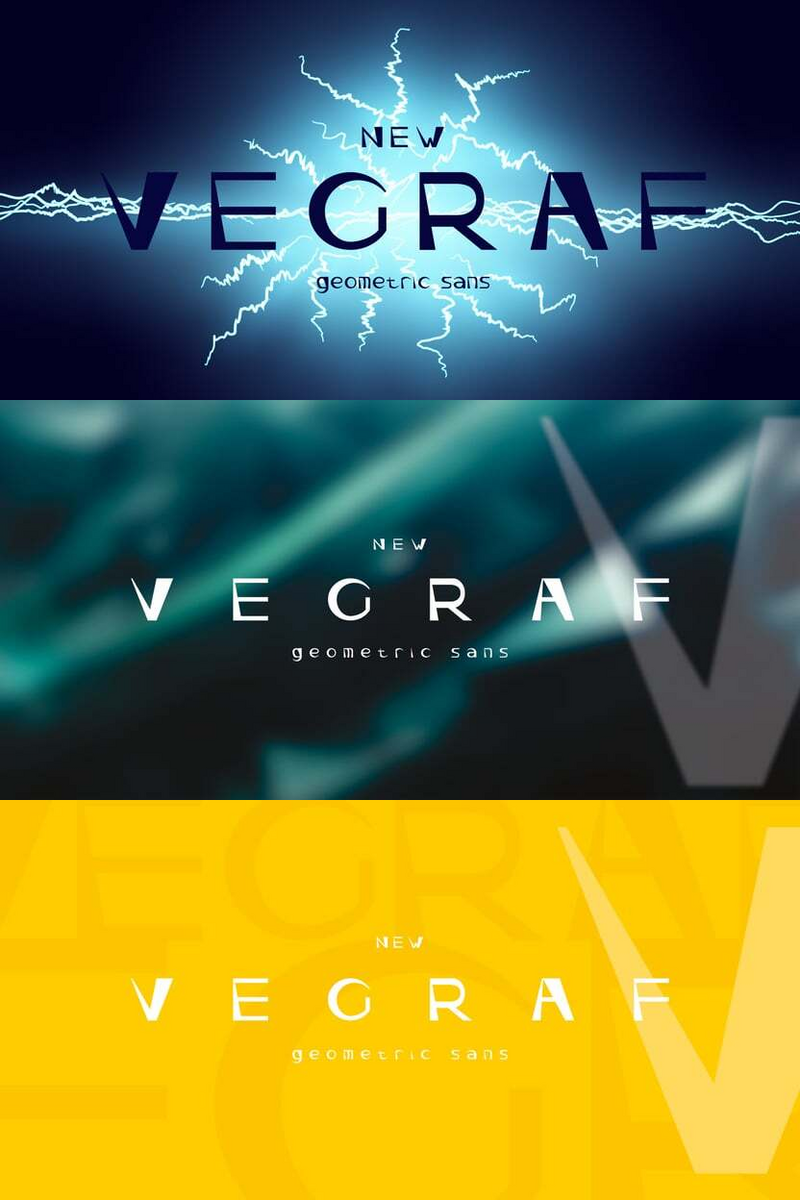
Vegraf: Is Your Brand *Ready For Impact*?
Hey there, pixel pusher, content conjurer, visual storyteller! Yeah, you. The one with a thousand ideas and not enough space to scream them. I'm Vegraf. And no, I'm not just another pretty face in your font folder. I'm the bold declaration, the undeniable presence, the one who's here to stop the scroll dead in its tracks.
Think of me as your secret weapon in a world of fleeting attention. I wasn't designed for quiet contemplation. I was forged in the fire of fast feeds and dynamic stories. My purpose? To give your most important messages a voice that can't be ignored, whether it's a snappy Instagram caption, a YouTube thumbnail screaming for clicks, or that crucial headline on your creator website. I understand the rhythm of modern design – it's all about impact, immediacy, and an unmistakable brand presence.
What makes me tick? My unapologetic boldness, my raw expressiveness. You're tired of your message getting lost in a sea of sameness? That's my cue. I don't just display text; I project personality. I solve the 'vanilla content' problem by infusing every character with a visceral punch, ensuring your brand isn't just seen, but felt. I help you build an identity that’s as vibrant and unique as your content itself, making sure every post, every video, every announcement carries your signature authority and flair. Vegraf is here to make your mark.
My motto? Vegraf: Command the Feed.
Wondering where I truly shine? Imagine me as the hero of your:* Social Media Headlines: Instantly grab attention on Instagram, TikTok, or X.* YouTube Thumbnails: Make your video irresistible with a title that pops.* Brand Logos & Wordmarks: Craft an unforgettable identity that screams confidence.* Website Section Titles: Guide your audience with unmissable calls to action like 'Start Your Journey' or 'Explore Collections'.* Podcast Cover Art: Ensure your show's vibe is clear before a single listen.
I thrive wherever a strong visual statement is non-negotiable. Vegraf isn't just a font; it's a statement.